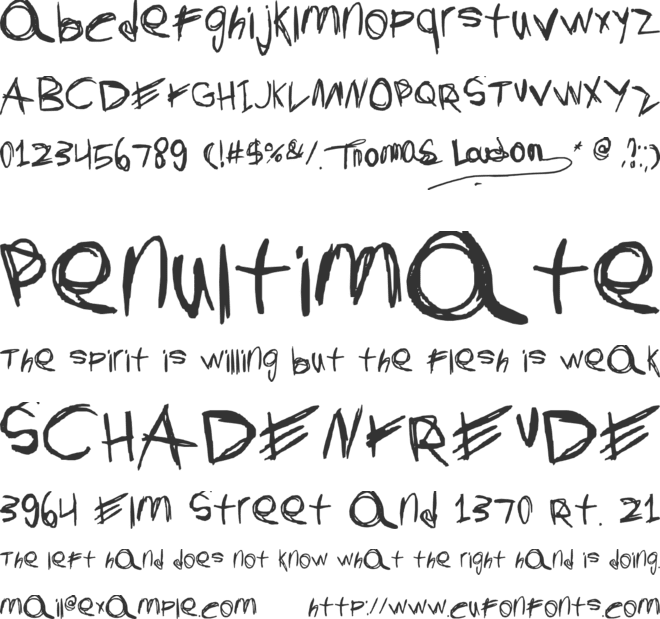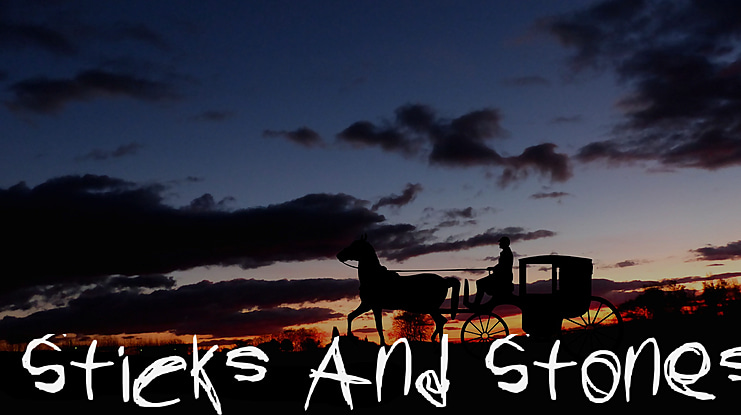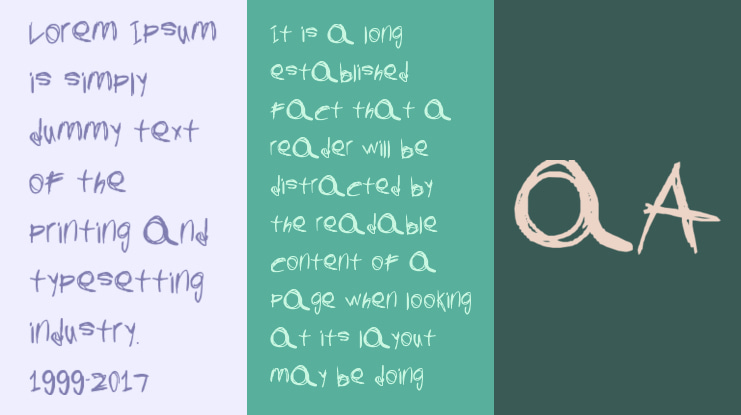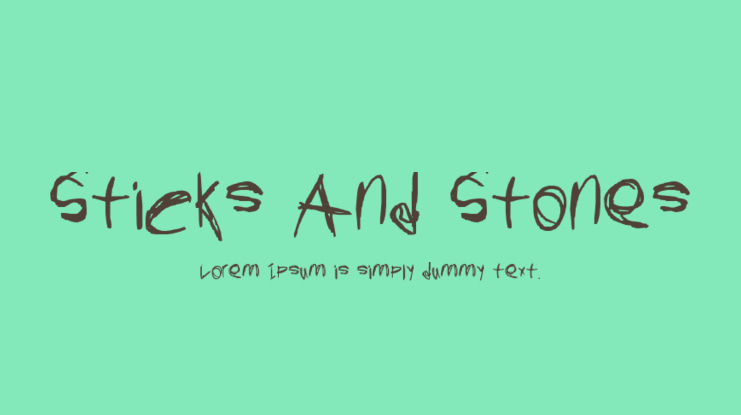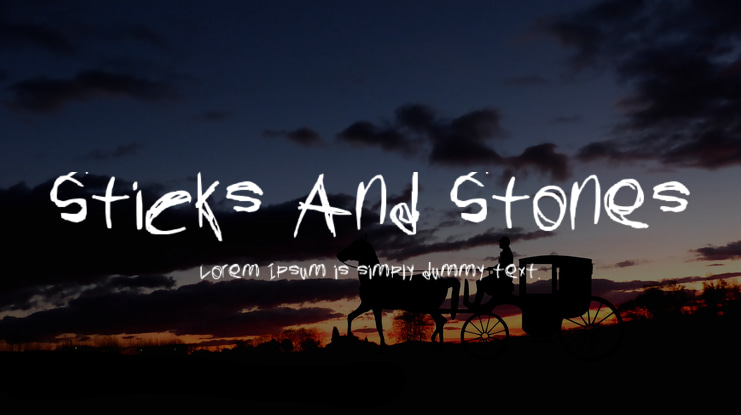
Sticks And Stones Font
Words carved in a tree....
NOTE: This font was an abandoned project, but I recently found it in my Windows My Font Tool folders. So, I compiled it today, and decided to share it! Hope you enjoy.